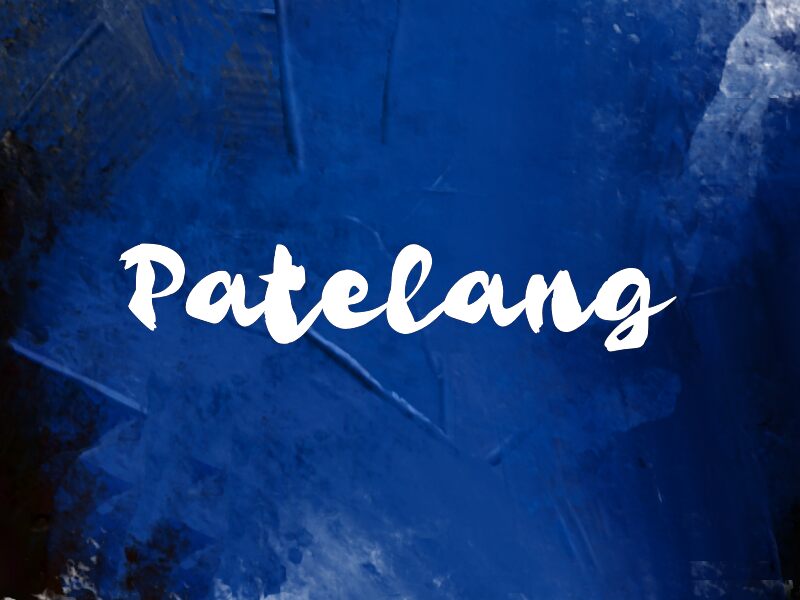
Patelang font by wep is a free brush font that exudes a hand-lettered appearance, delivering an artistic flair to your design. This typeface boasts a dynamic and energetic look with modern, expressive characters. With an informal, casual tone, it provides a personal touch that is both creative and engaging.
Use this unique font for projects that require a vibrant, artistic vibe such as posters, book covers, magazines, website headers, social media content, logos, or branding materials. It's also suitable for invitations, apparel design, packaging, crafts, or any visual content that can benefit from its energetic style.
Patelang is a stylish and versatile free font, perfect for both personal and commercial projects. With its unique design and elegant curves, this font stands out in a variety of applications, from branding to invitations. The careful attention to detail in its letterforms makes it a great choice for anyone looking to enhance their designs with a modern touch.